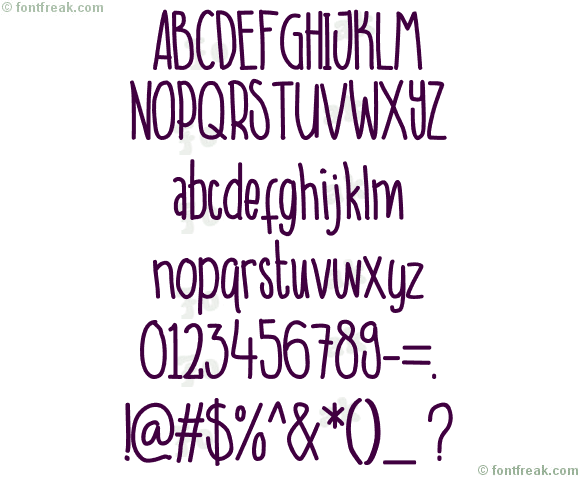
A Day in September
About A Day in September
A Day in September is a delightful handwritten font designed by Ariq Sya, categorized as a script typeface. This charming font exudes a warm, inviting feel, characterized by its slightly irregular strokes and playful letterforms. The stroke weight varies throughout the characters, offering a sense of liveliness and spontaneity. With moderate contrast and ample spacing between letters, A Day in September maintains readability while exuding a personal touch, making it an ideal choice for a variety of projects.
This versatile font shines in several specific use cases. It’s perfect for wedding invitations, where its whimsical style can enhance the romantic atmosphere. Additionally, it works wonderfully for greeting cards, allowing for heartfelt messages to stand out. Restaurant menus can also benefit from its unique charm, creating an inviting experience for diners. For content creators, this font adds a distinctive flair to social media graphics, making posts more engaging and relatable. Graphic designers will appreciate its adaptability across both digital and print mediums.
The target audience for A Day in September includes graphic designers looking for a unique, expressive typeface, small business owners wanting to add a personal touch to their branding, and content creators seeking to enhance their visual storytelling.
What sets A Day in September apart is its ability to blend playfulness with elegance. The free download of this font allows users to incorporate its distinctive style into their projects without the constraints of licensing fees. Its unique character and charm make it a standout choice for those aiming to create a memorable visual identity. Whether for professional use or personal projects, A Day in September offers a refreshing alternative to more conventional typefaces, bringing creativity to the forefront.